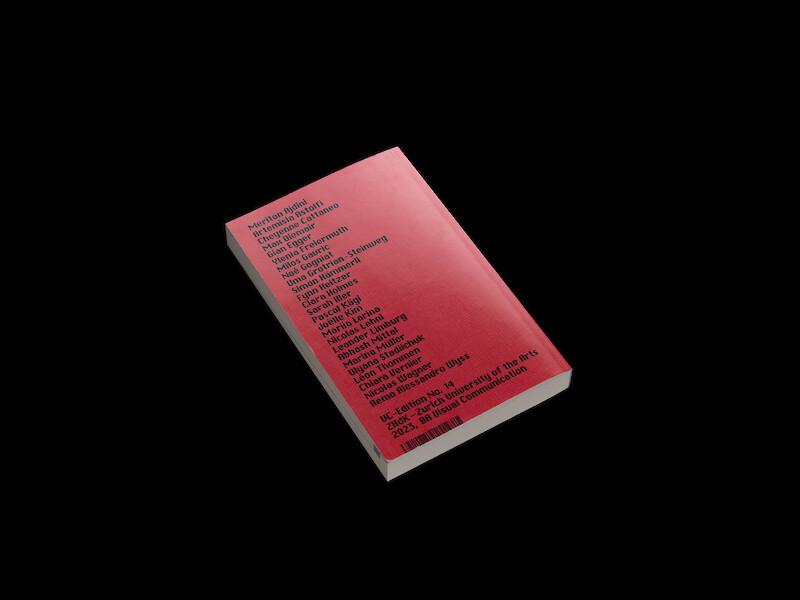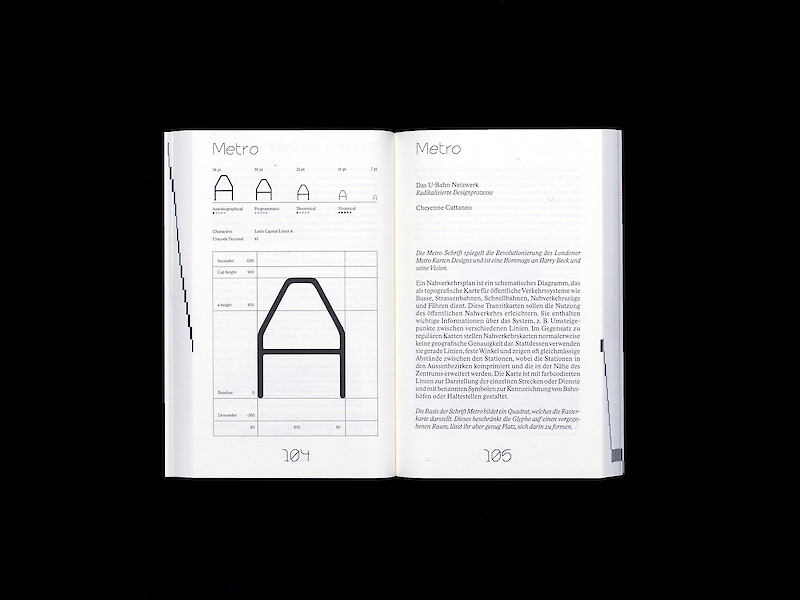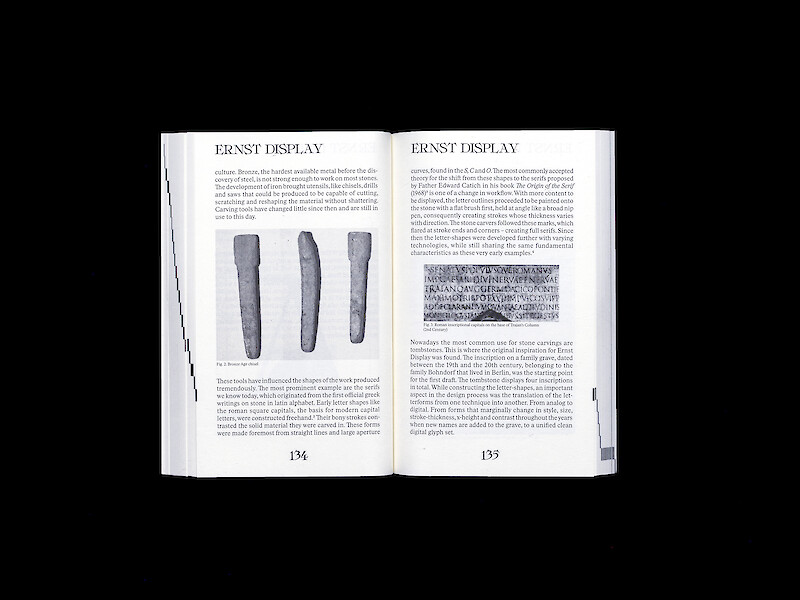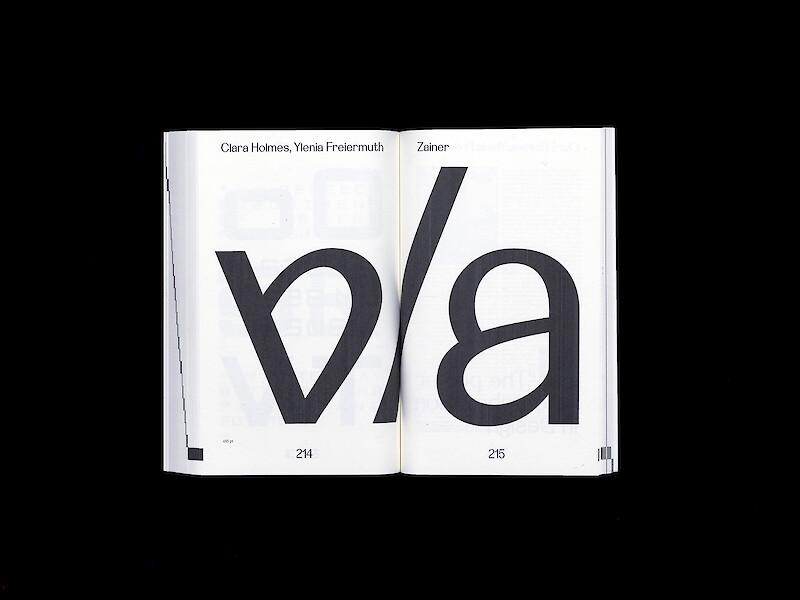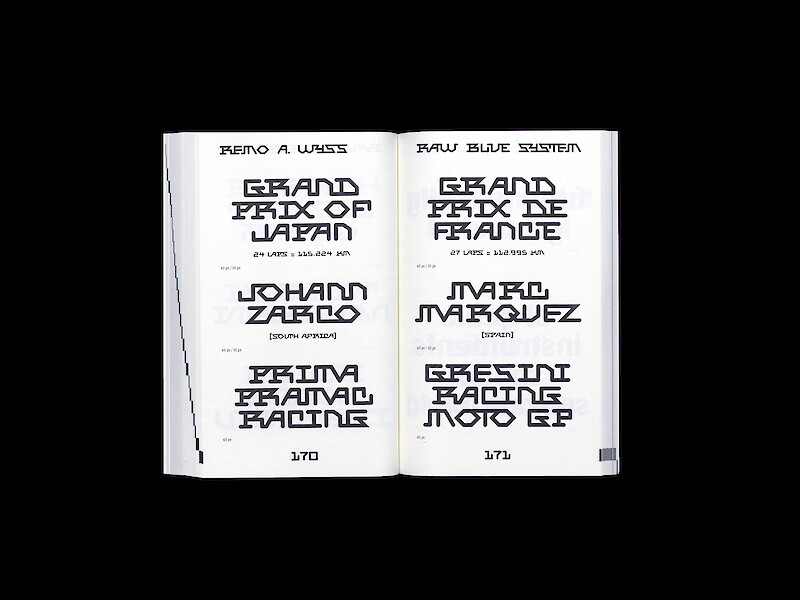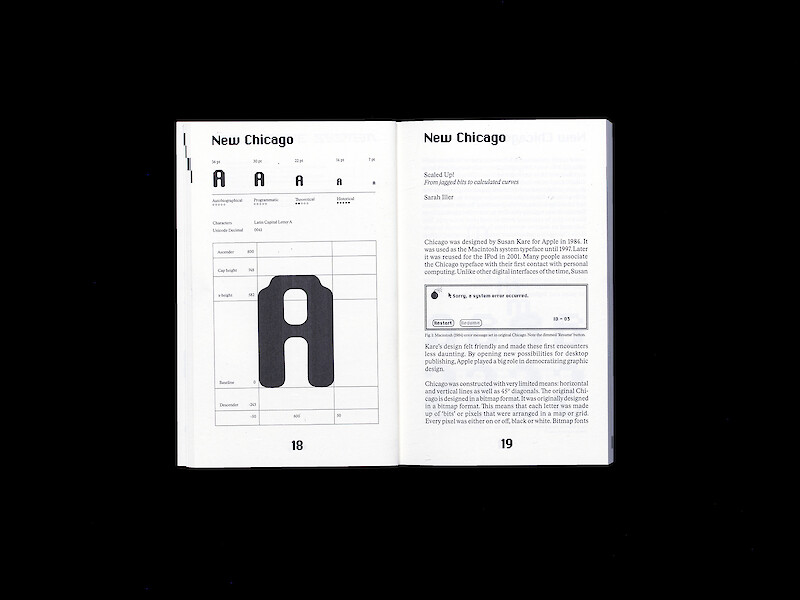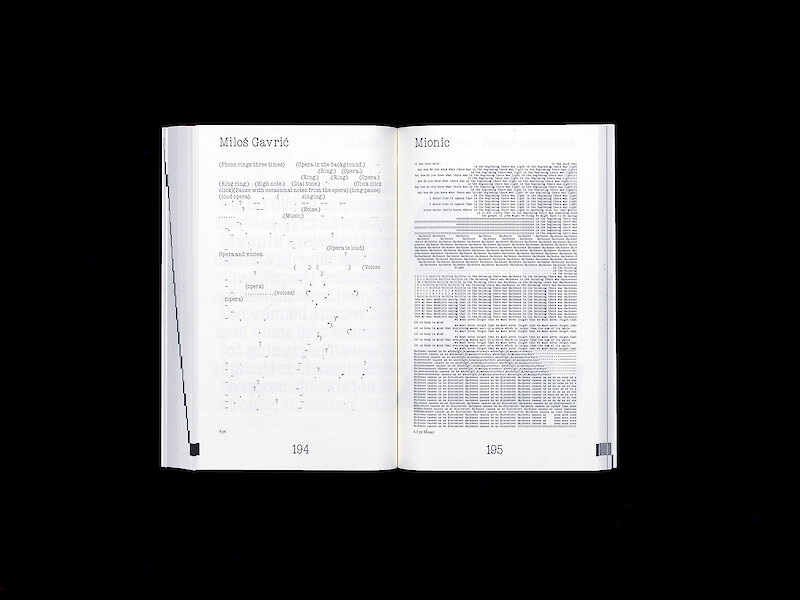
Is Every Typeface a Revival?
This publication was initiated during a Type Design brief at Zurich University of the Arts. Students were tasked to select a typeface published before 1999, to which they had a strong emotional connection, either positive or negative. Parallel to articulating personal emotions, students also collected information about the designer, type foundry, historical context and technology of production that led to the creation of the typeface. Then they proposed a contemporary redesign or revival. The design methodology was flexible, allowing for a range of approaches: from a classic revival in which the designers used their skills to digitize a typeface that was unavailable (or available in poor quality only), to a different design interpretation of the typeface. It was also possible to use the historical typeface as a mere formal or conceptual inspiration for a new creation. In different ways, then, the students investigated the definition, role and limitation of a revival typeface today.
Their research and design processes are reflected in the texts which the students present in this publication, along with specimen pages for their typeface. The texts grew out of a two-weeks writing class at Zurich University of the Arts called Designers as Writers. Considering a broad range of writing practices pursued by designers long before (and also while), academic thesis writing took hold at art schools, from Jan Tschichold, Anna Simons and Hildegard Korger to Adrian Frutiger and Otl Aicher, from Hans-Rudolf Lutz and Fiona Ross to Zuzana Licko, Dexter Sinister, Alphabettes and more, the students familiarized themselves with (various combinations of) four basic approaches to writing: autobiographical, programmatic, historiographical and theoretical. These approaches informed daily writing exercises and staged impromptu readings in the evening, and eventually they also informed, to various degrees, the texts about the typefaces.
Students:
Meriton Ajdini, Artemisia Astolfi, Cheyenne Cattaneo, Max Diemair, Gian Egger, Ylenia Freiermuth, Miloš Gavrić, Noé Gogniat, Uma Grotrian-Steinweg, Simon Hämmerli, Fynn Heitzer, Clara Holmes, Sarah Iller, Pascal Kägi, Joëlle Kim, Mariia Larina, Nicolas Lehni, Leander Limburg, Abhash Mittal, Marina Müller, Ulyana Stadiichuk, Léon Thommen, Chiara Vernier, Nicolas Wagner, Remo Alessandro Wyss
Meriton Ajdini, Artemisia Astolfi, Cheyenne Cattaneo, Max Diemair, Gian Egger, Ylenia Freiermuth, Miloš Gavrić, Noé Gogniat, Uma Grotrian-Steinweg, Simon Hämmerli, Fynn Heitzer, Clara Holmes, Sarah Iller, Pascal Kägi, Joëlle Kim, Mariia Larina, Nicolas Le